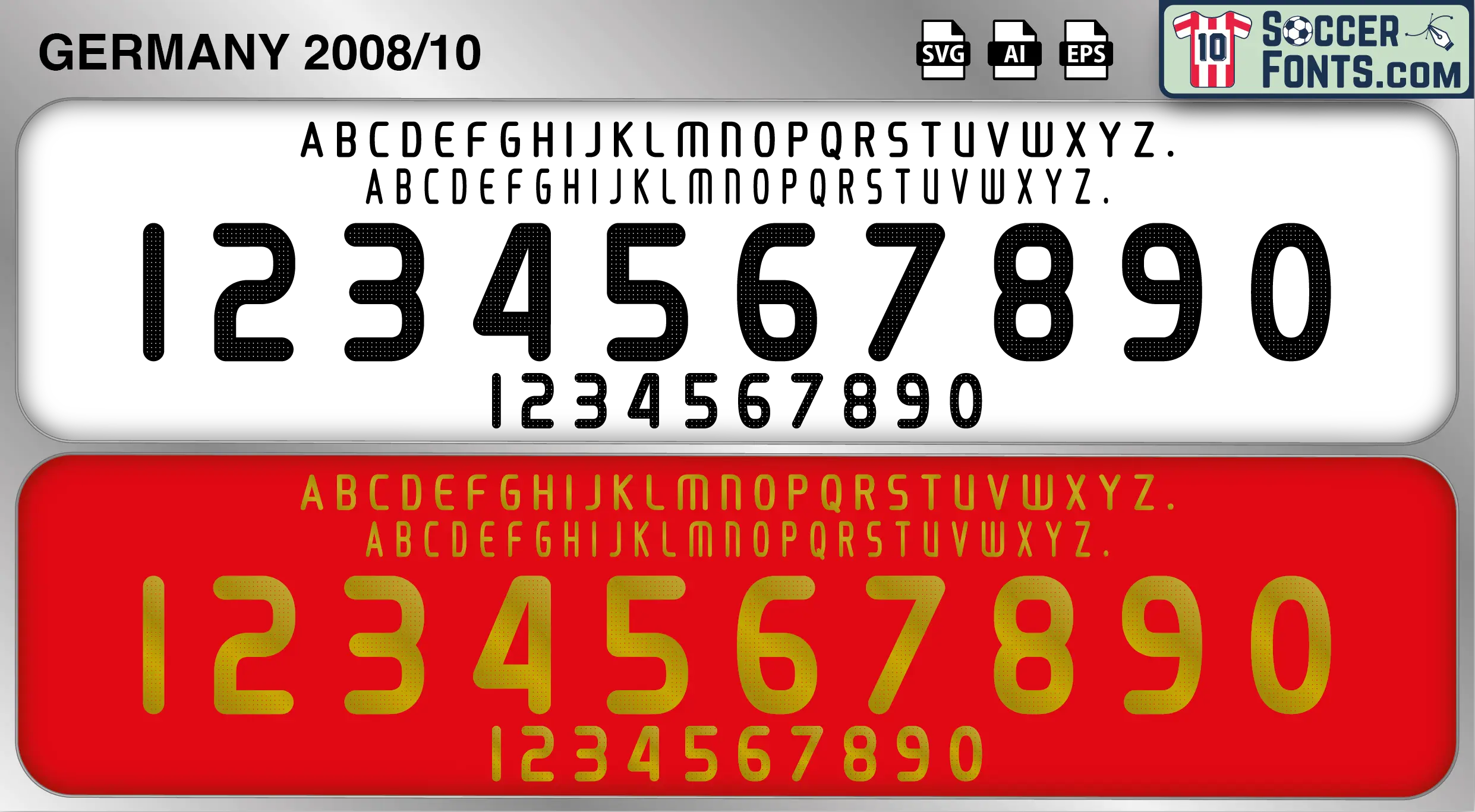
Germany 2008-10 Font
The Germany 2008-10 font is an editable soccer jersey lettering design in vector format inspired by the Germany kit style used during the 2008-10 football seasons. This football font artwork is prepared for football shirt recreations, custom jersey projects, football kit mockups and sports graphic design workflows.
The 2008-10 era followed Germany’s appearance in the UEFA EURO 2008 Final and saw the national team continue developing one of the strongest squads in world football. Under Joachim Löw, Germany refined a more progressive and attacking style while introducing a new generation of players. Alongside established stars such as Philipp Lahm, Bastian Schweinsteiger, Miroslav Klose and Lukas Podolski, younger talents including Mesut Özil, Sami Khedira, Manuel Neuer and Thomas Müller began emerging on the international stage. This period culminated with the 2010 FIFA World Cup in South Africa, where Germany produced some of the tournament’s most exciting performances.
The Germany 2008-10 font became associated with the birth of a new generation that would later achieve historic success. Germany shirts from this era remain especially popular among football shirt collectors because of their connection with the breakthrough of Özil, Müller and Neuer, as well as Germany’s memorable performances at the 2010 World Cup. The Germany 2008-10 font reflects a period of evolution and innovation within German football, marking the beginning of a team that would soon become one of the dominant forces in international competition.